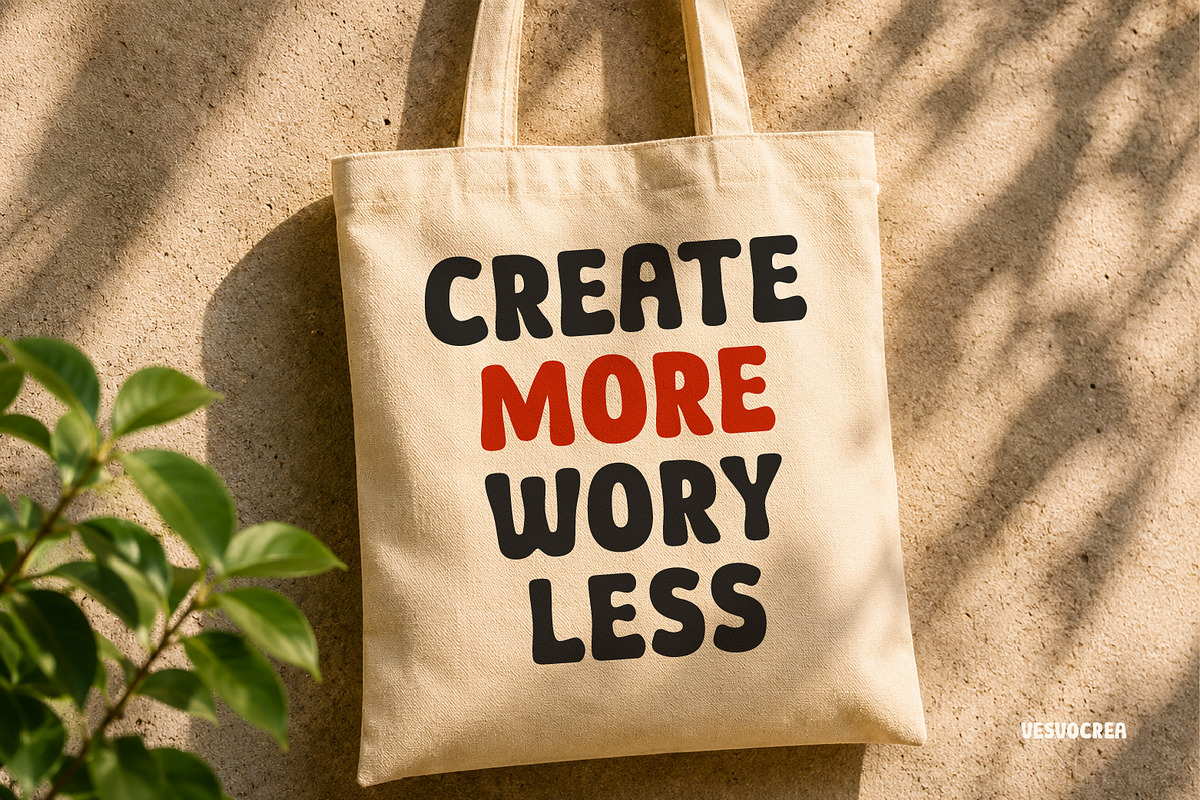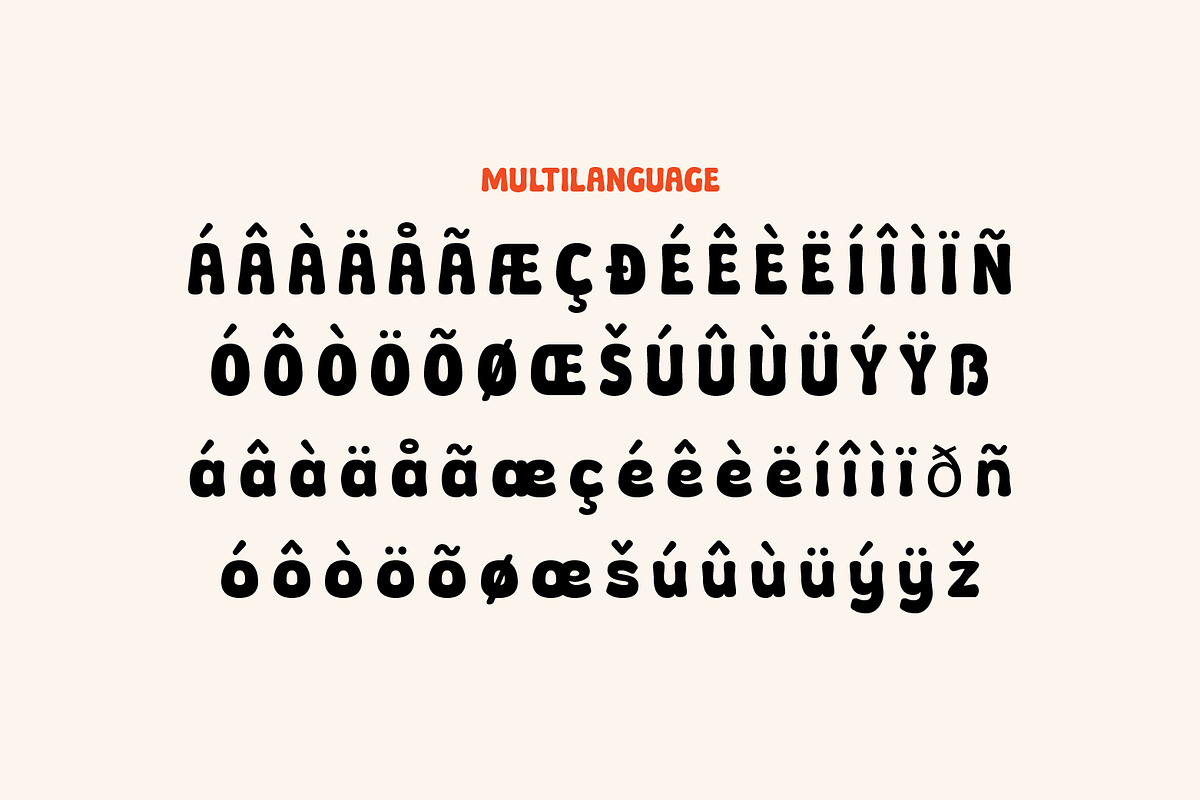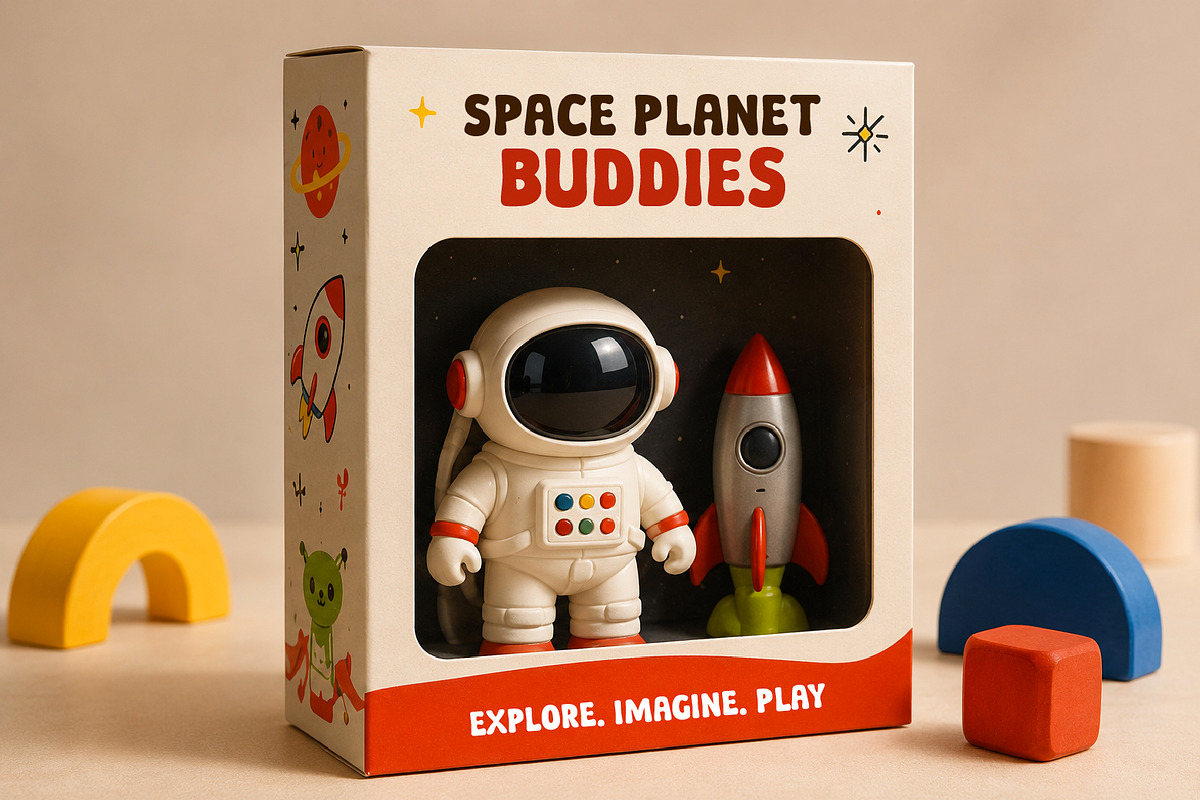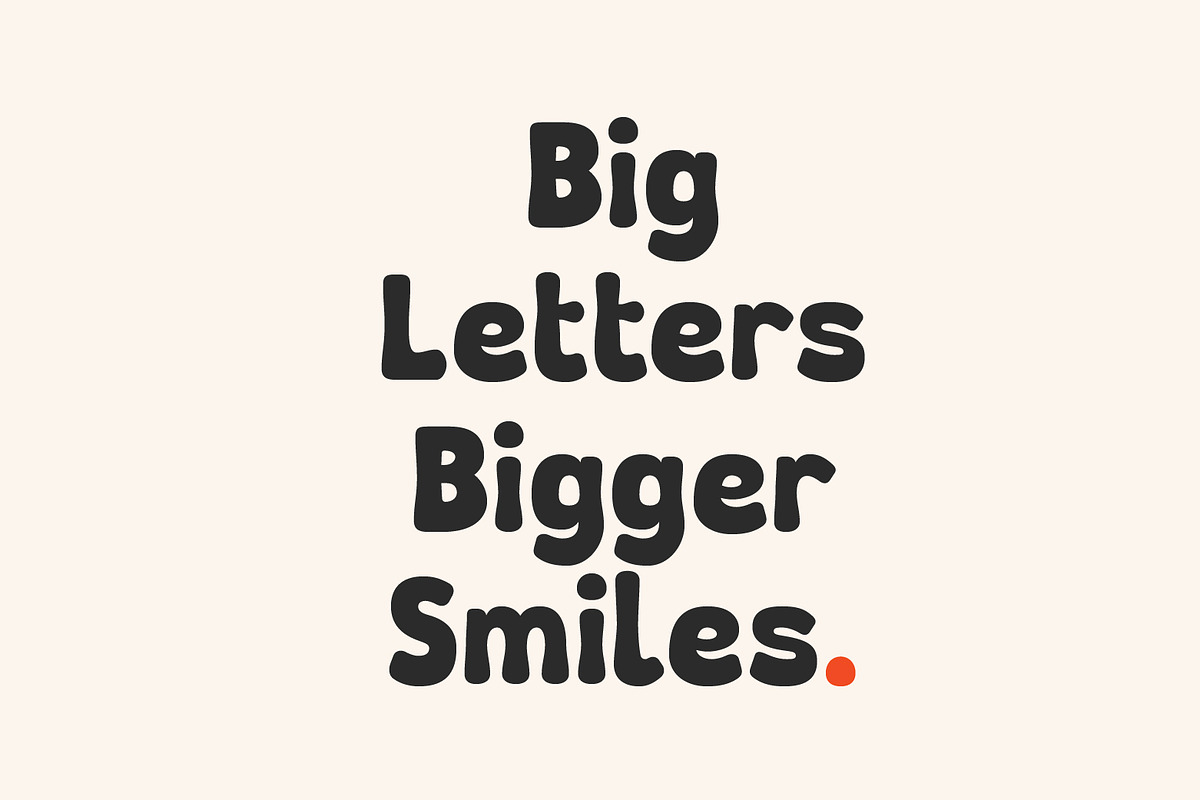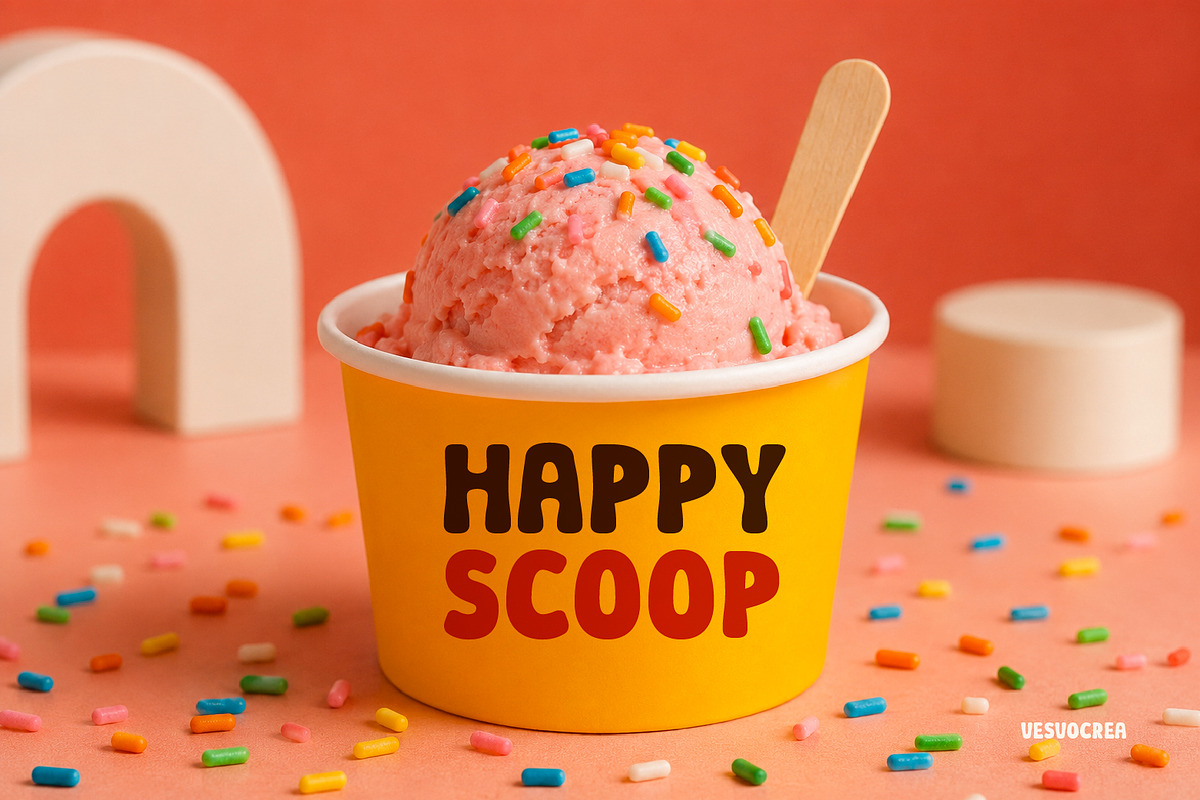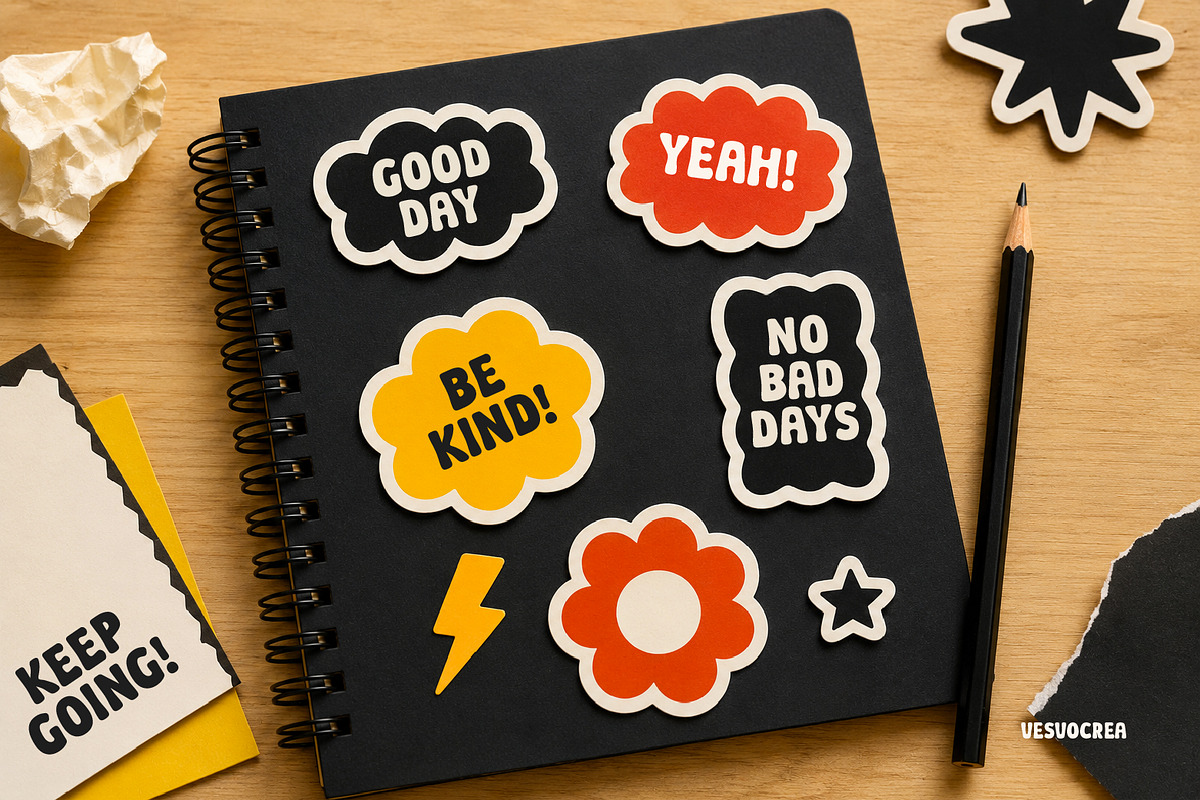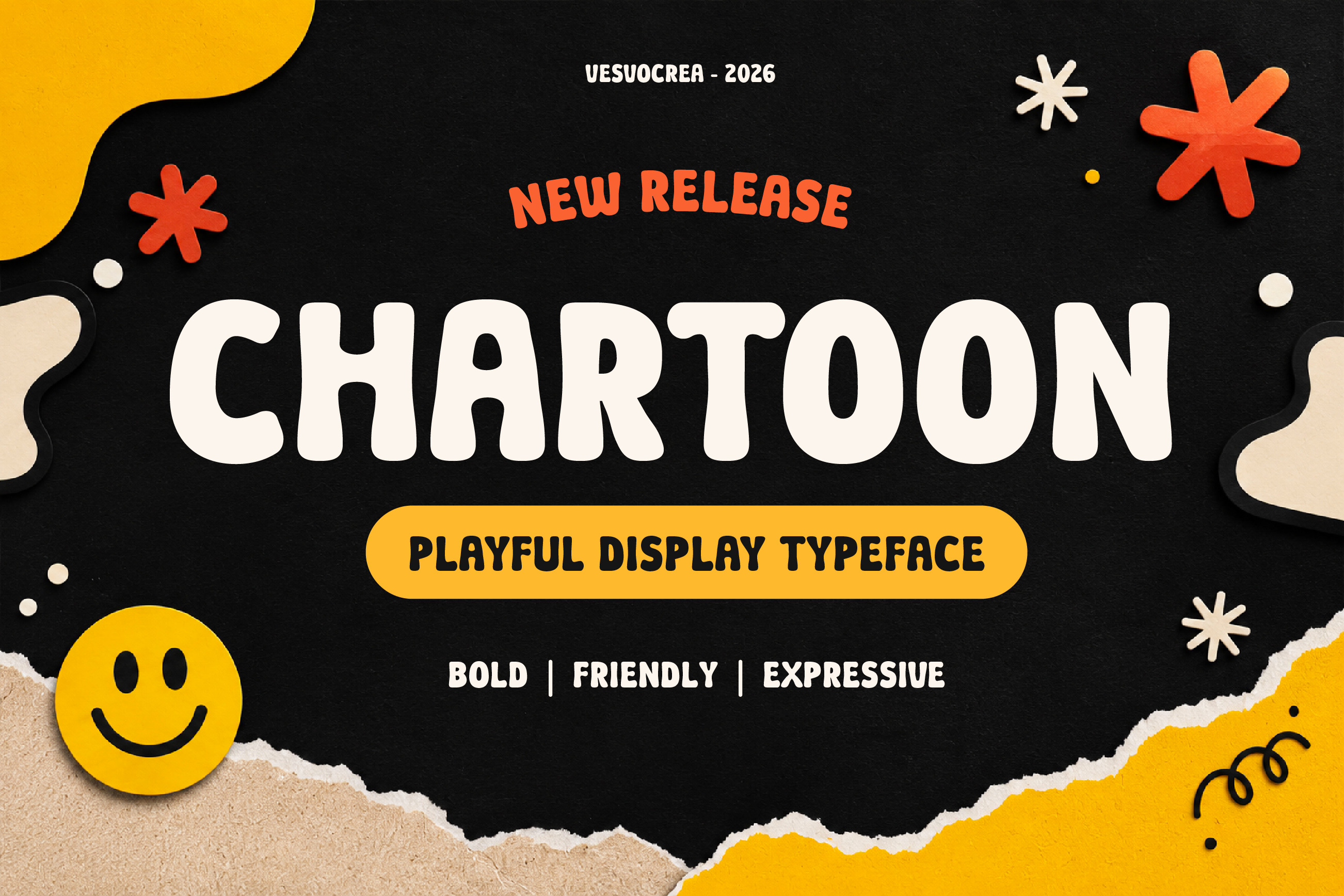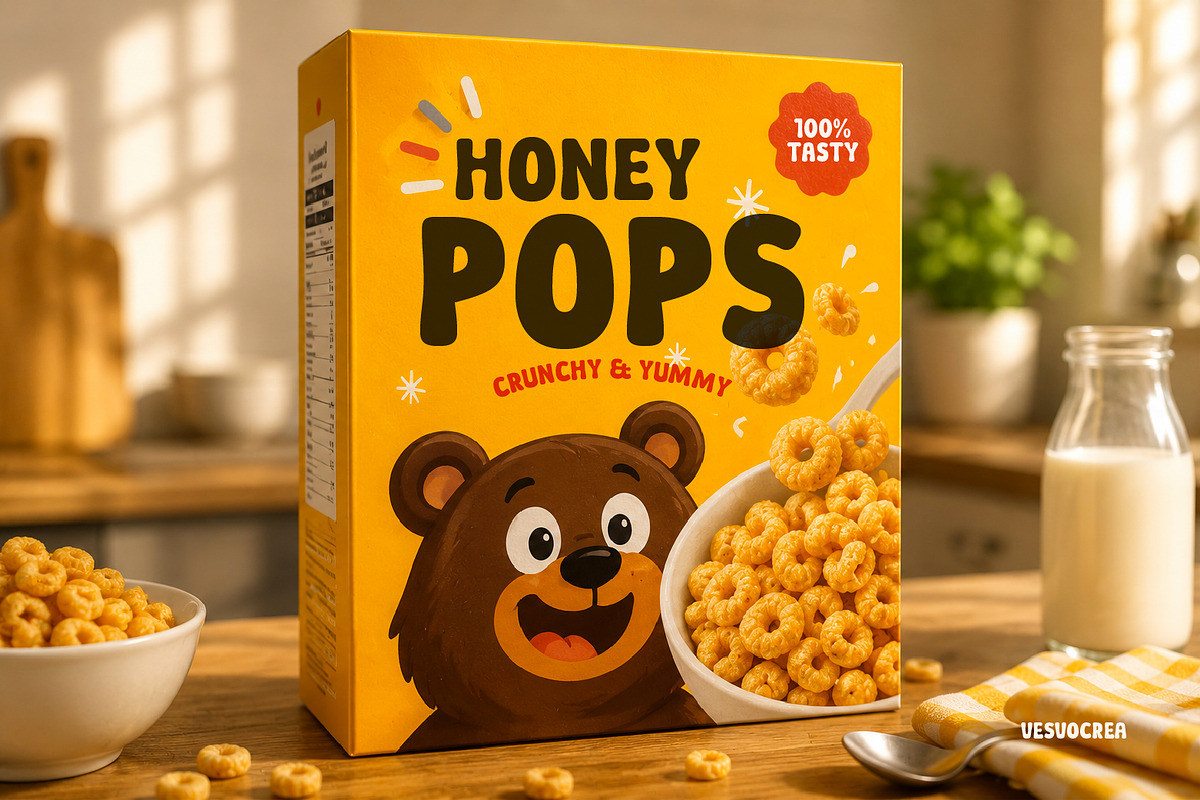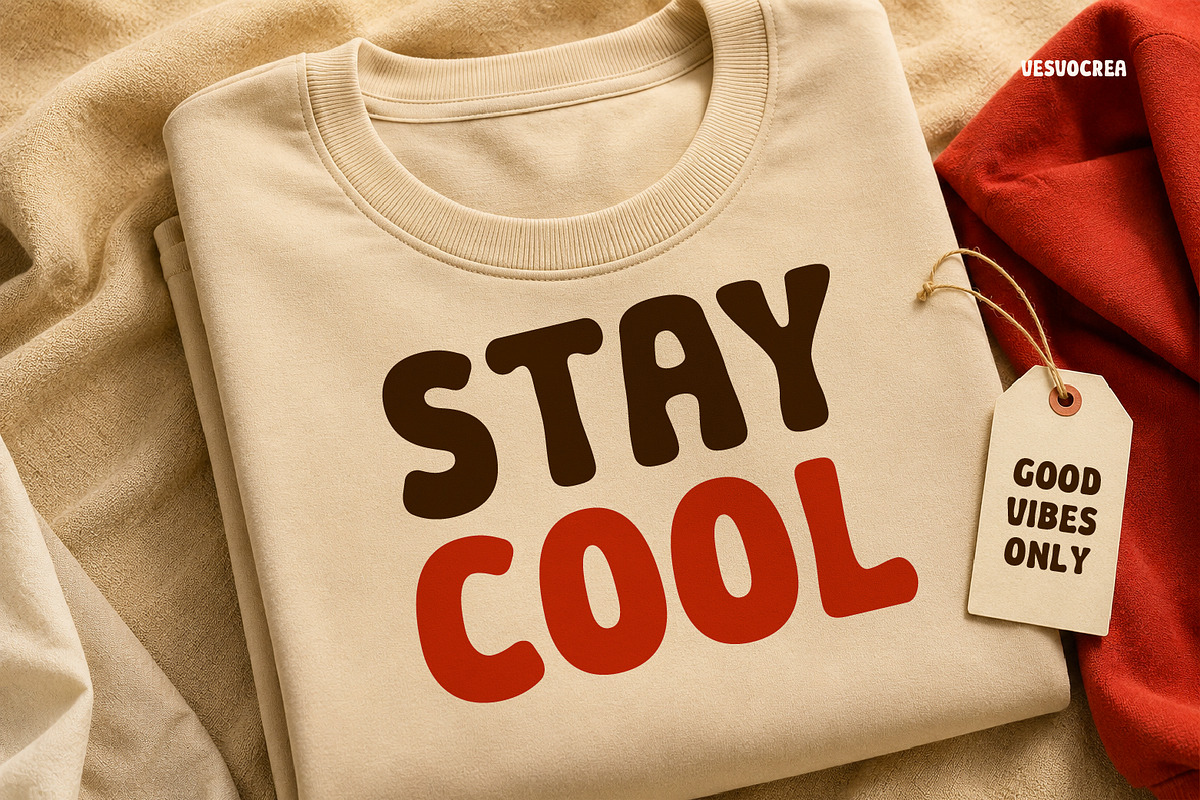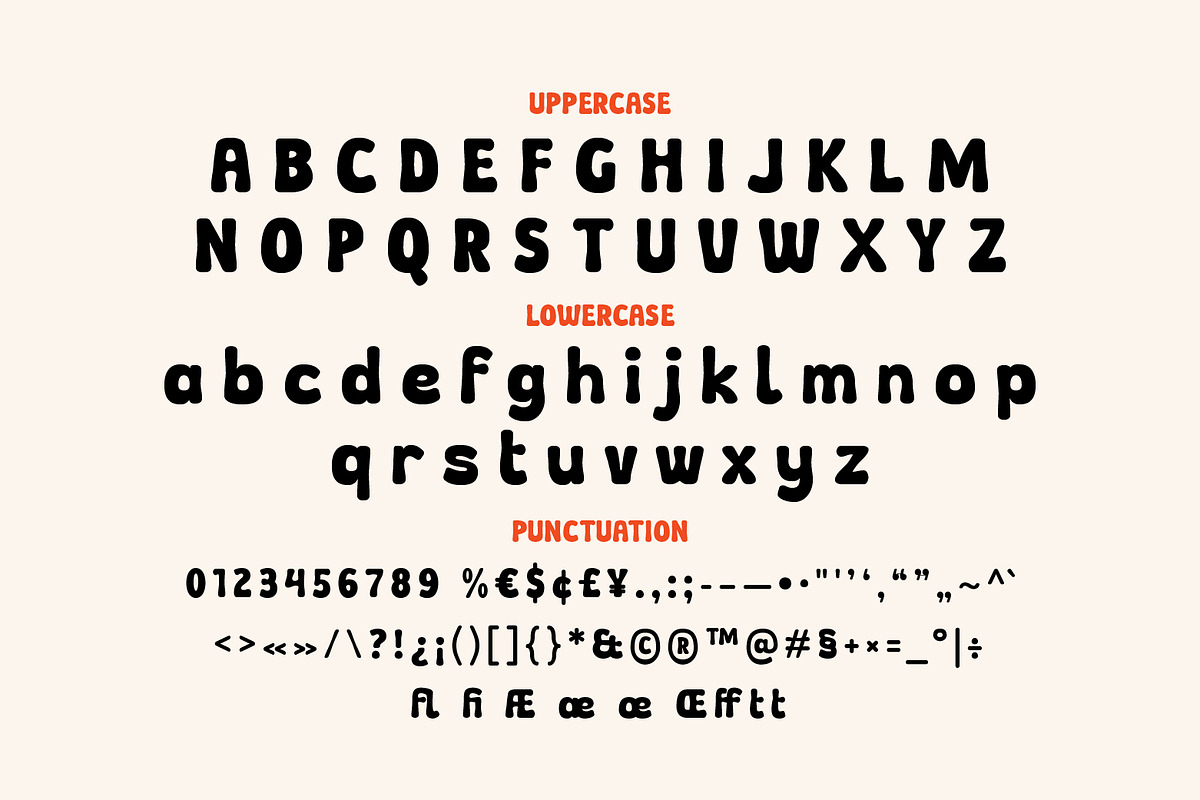
Chartoon - Playful Display Font
Chartoon is a playful display font with bold, rounded, and friendly letterforms that bring fun and personality to every design. Designed with expressive shapes and balanced proportions, this typeface is perfect for creating eye-catching and memorable visuals.
Whether you're working on logos, branding, packaging, posters, social media graphics, children's projects, or other creative designs, Chartoon adds a cheerful and expressive touch with minimal effort.
- Logos, branding, packaging, posters, children's projects, social media graphics, merchandise, and more.
This typeface has been carefully designed with attention to every detail, making it both versatile and enjoyable to use across a wide variety of creative projects.